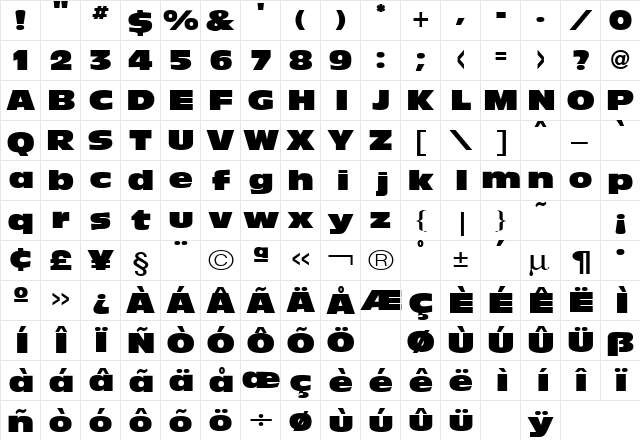
Olive Antique Black Extended Regular
Design Context for Olive Antique Black Extended Typeface
Olive Antique Black Extended has the warm character of retro typography — evoking diners, record sleeves, and the golden age of print advertising.
Font Pairing: Combine Olive Antique Black Extended with a simple slab or neutral sans — period-accurate companions reinforce the vintage feel without competing for attention.
Pro Tip: Use Olive Antique Black Extended for headlines and pull quotes rather than body copy — its personality is best appreciated in short, focused bursts.